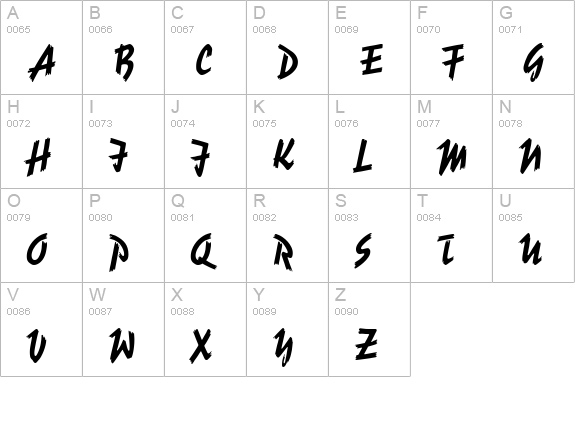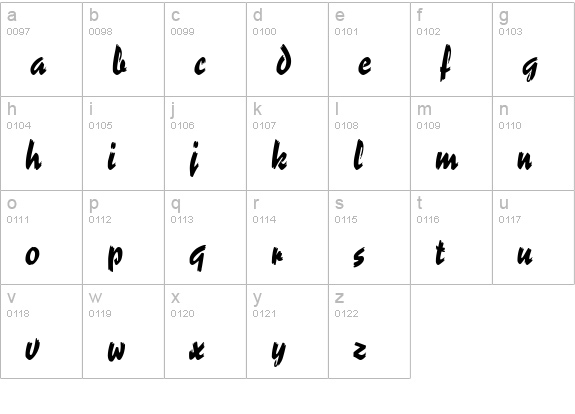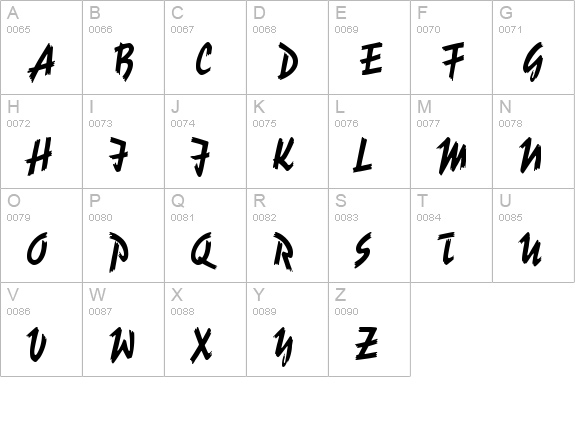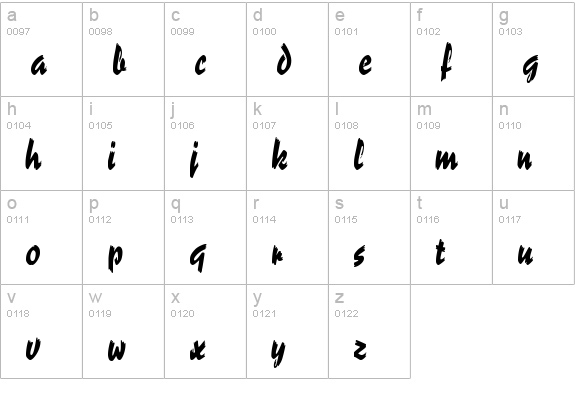
Spiffy Script SSi Font Details
Introducing the stunning Spiffy Script SSi font, the epitome of elegance and sophistication. With its intricate and beautifully crafted letterforms, this font is sure to make a bold statement in any design project. Designed with precision and attention to detail, Spiffy Script SSi exudes a sense of luxury and finesse. Each letter is meticulously hand-drawn, resulting in a seamless flow that effortlessly captivates the eye. The versatility of this font is unparalleled, making it perfect for a wide range of applications. From wedding invitations to branding materials, Spiffy Script SSi adds a touch of class and refinement to any design. But what makes this font even more extraordinary is that it is completely free! Yes, you read that right - Spiffy Script SSi can be freely downloaded at FontsMarket.com. So why wait? Elevate your designs with the exquisite Spiffy Script SSi font today. Download it for free and be prepared to be amazed by its timeless beauty and elegance.